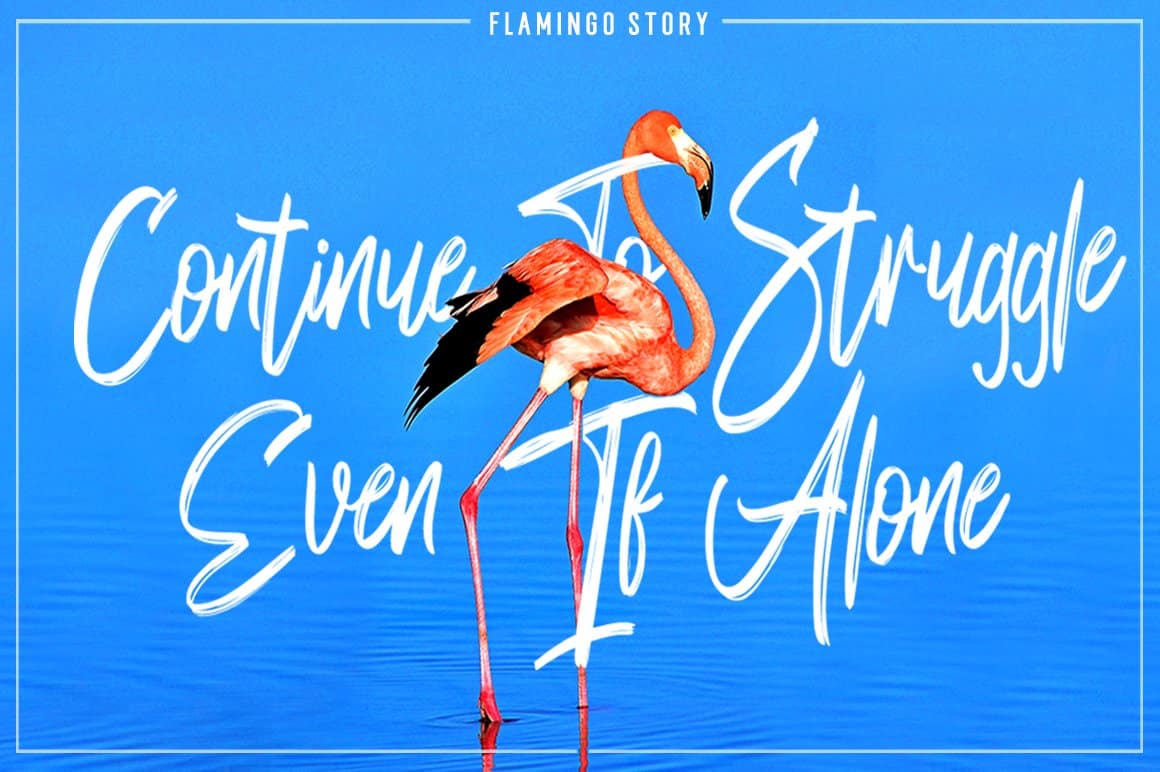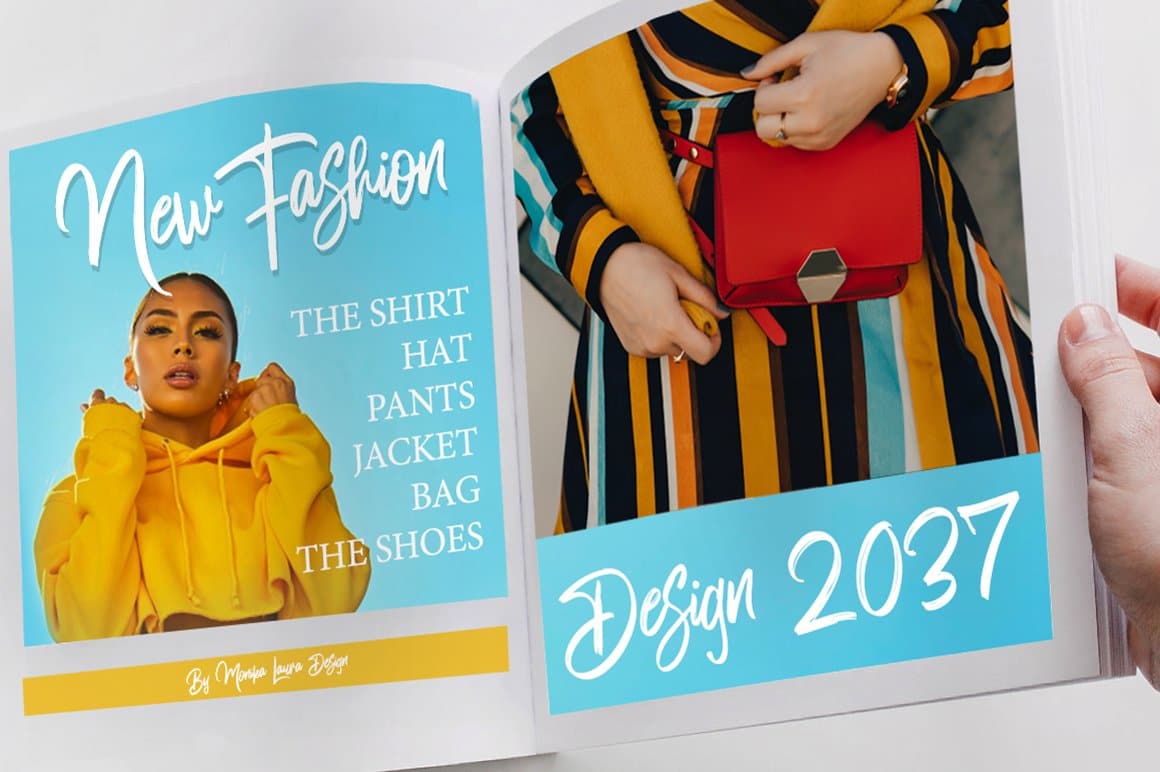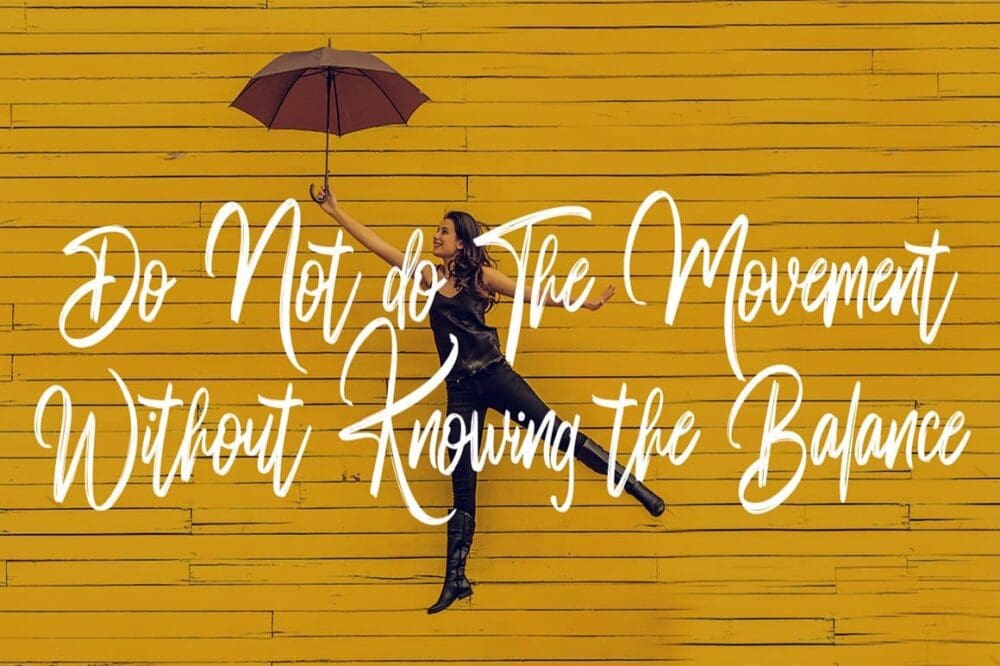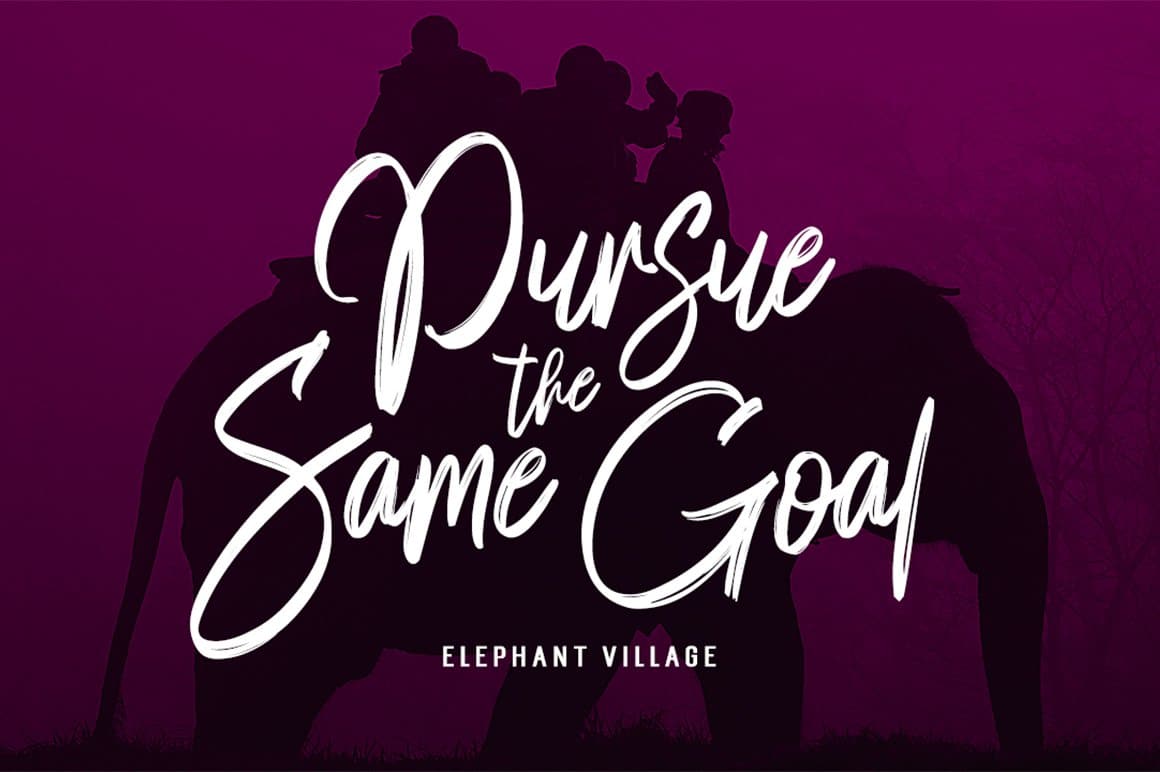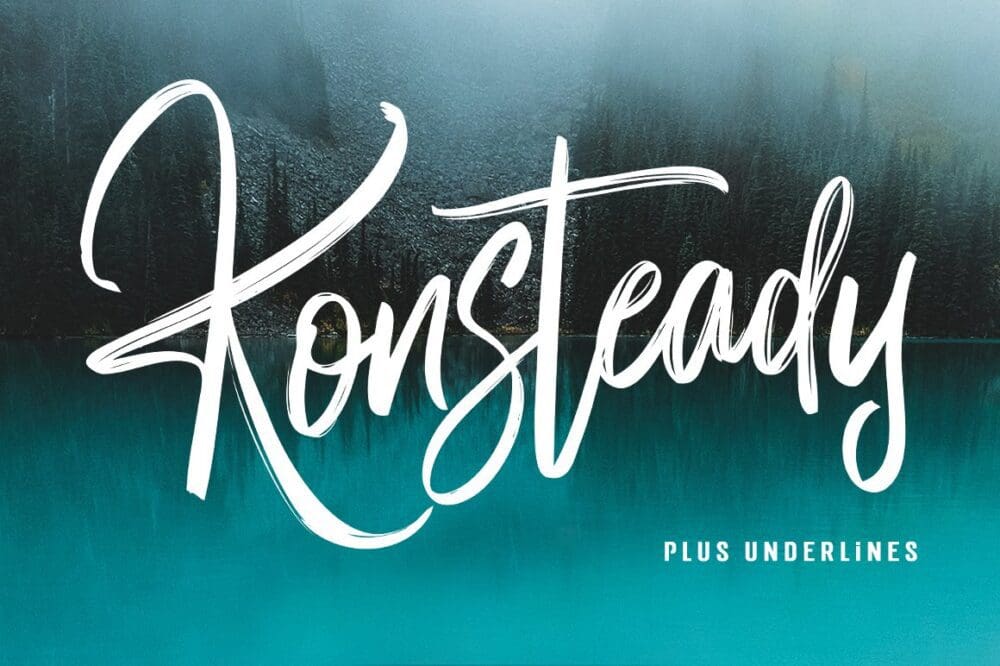
Konsteady Brush Font
Konsteady is a cool and brushed handwritten font, crafted to give your headlines and logotype projects a stylish touch. This font reads as strong, confident, and dynamic and can add tons of nostalgic character to your designs.